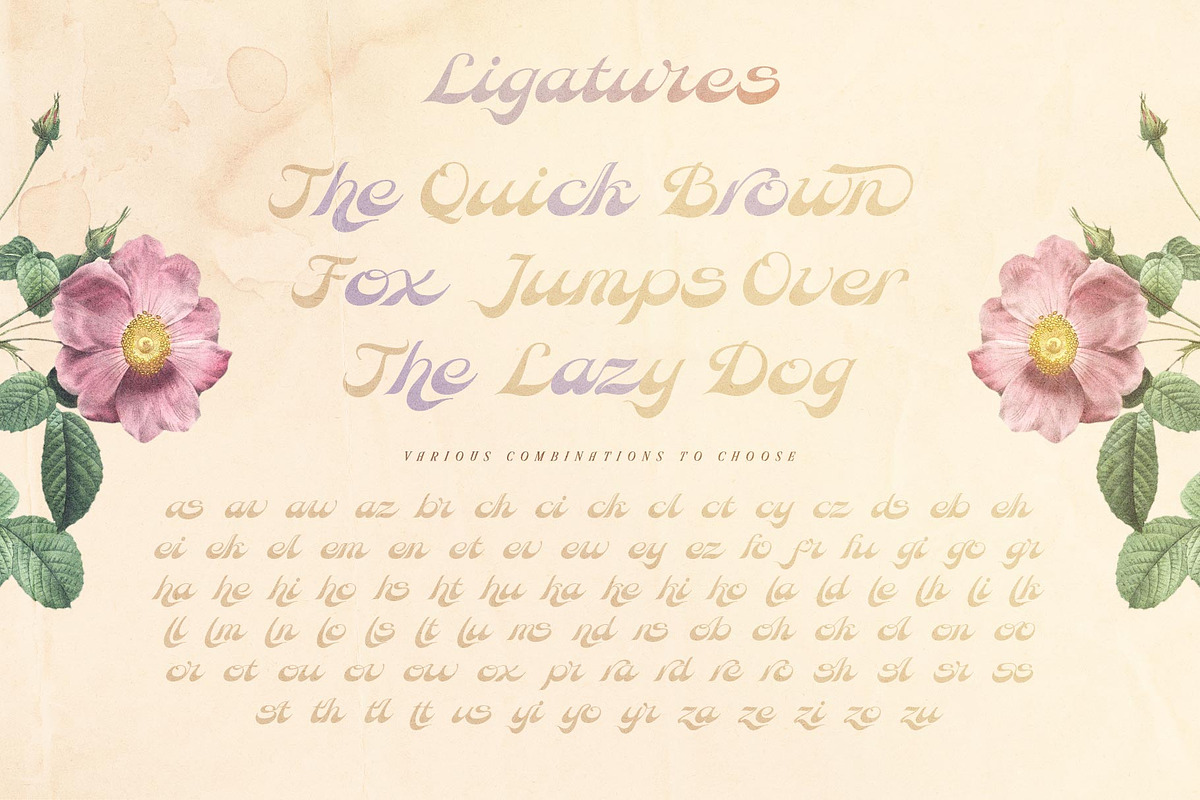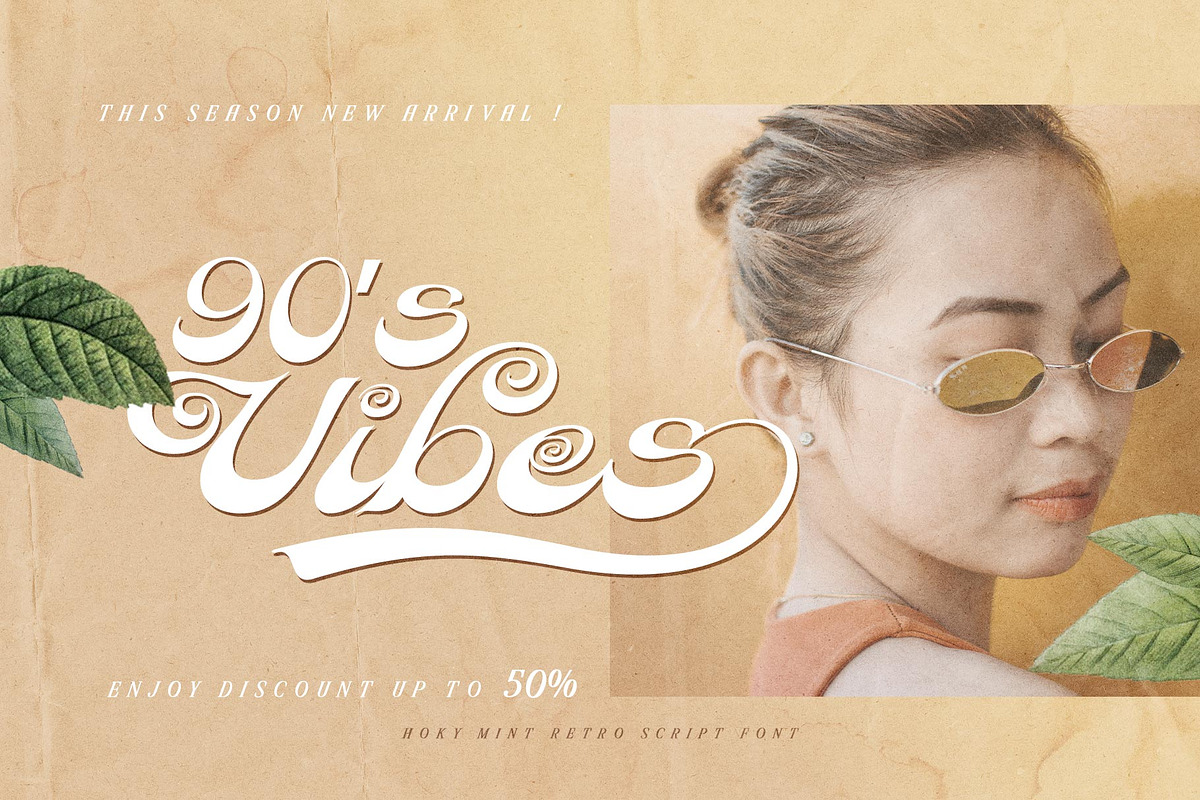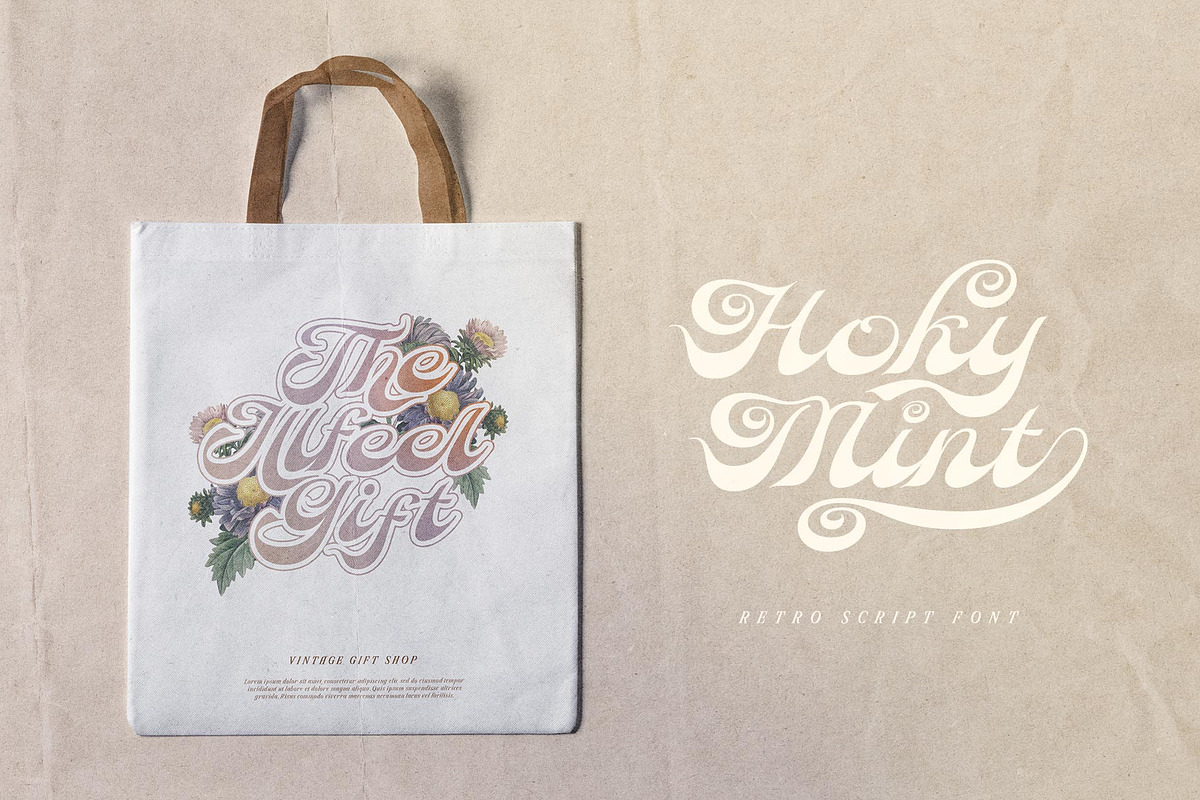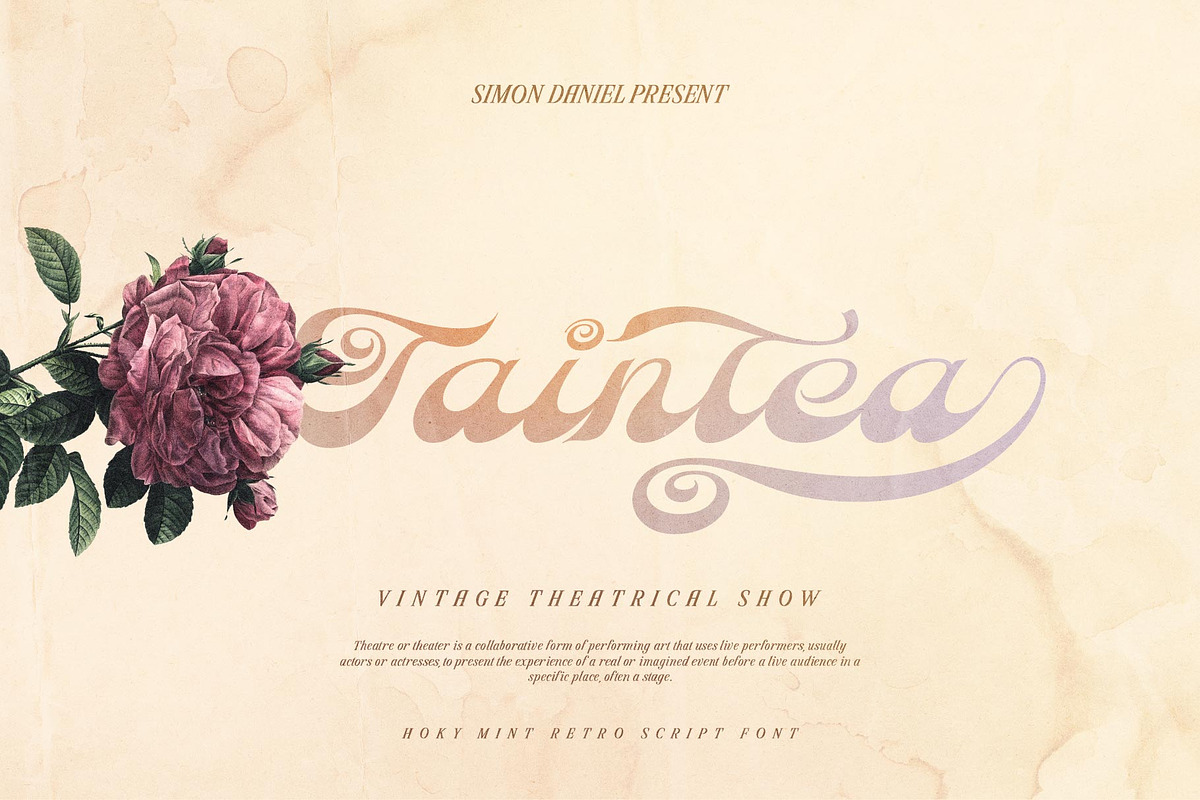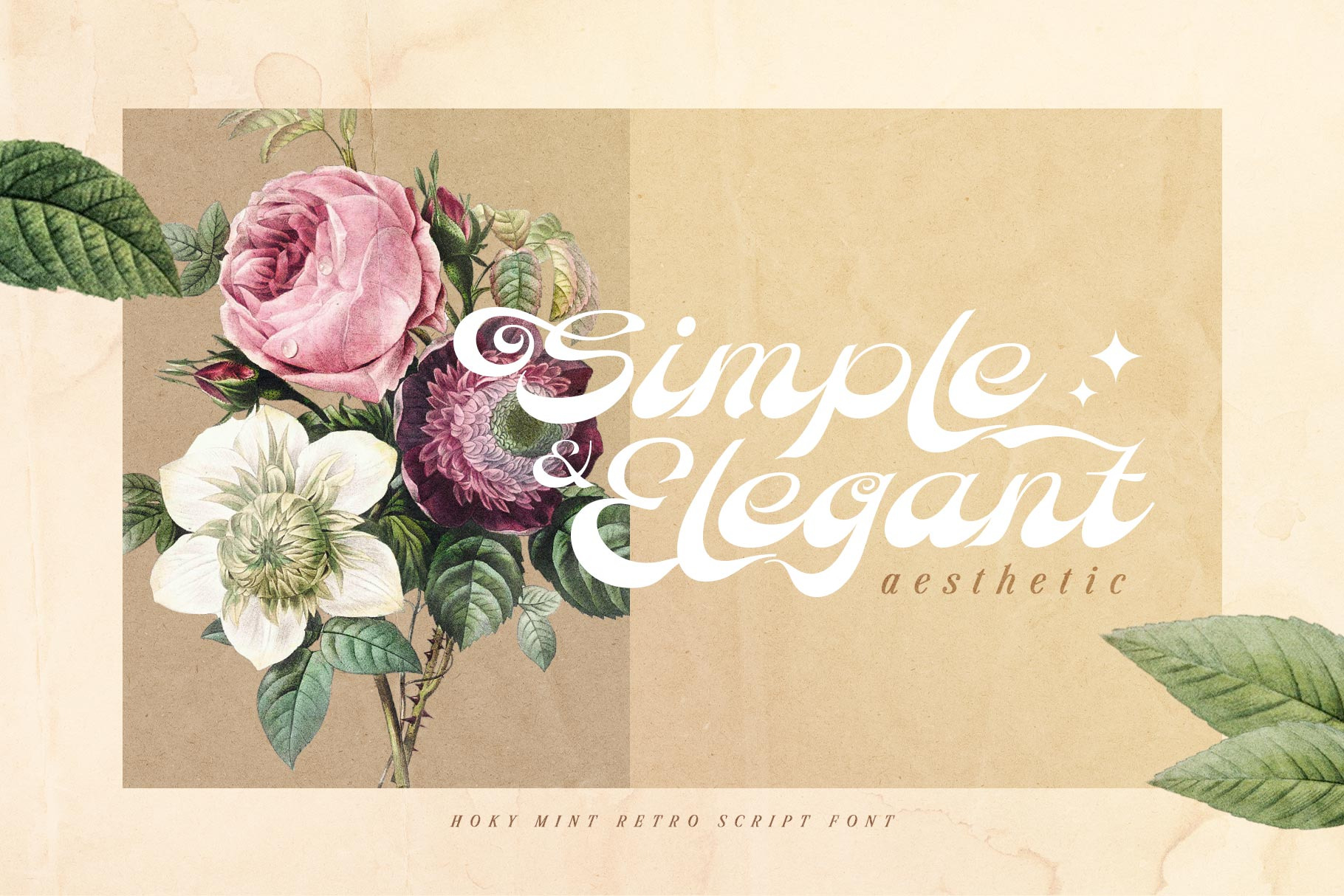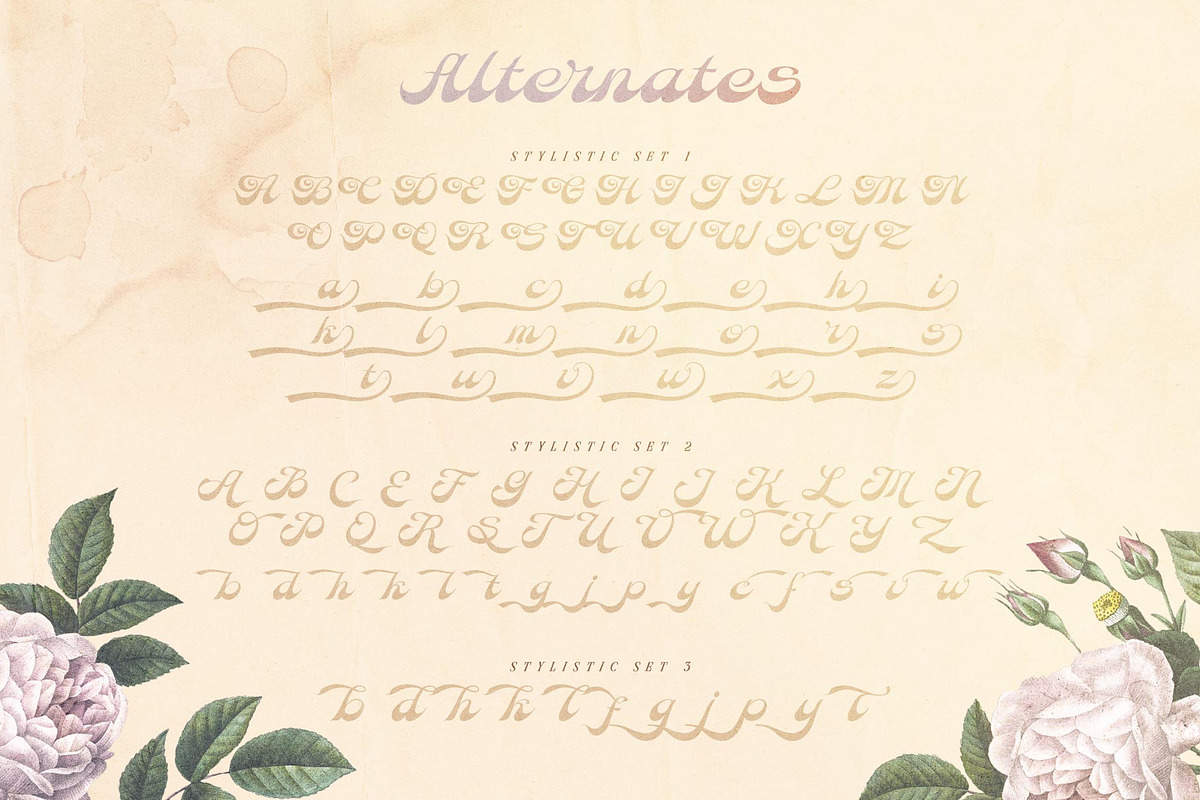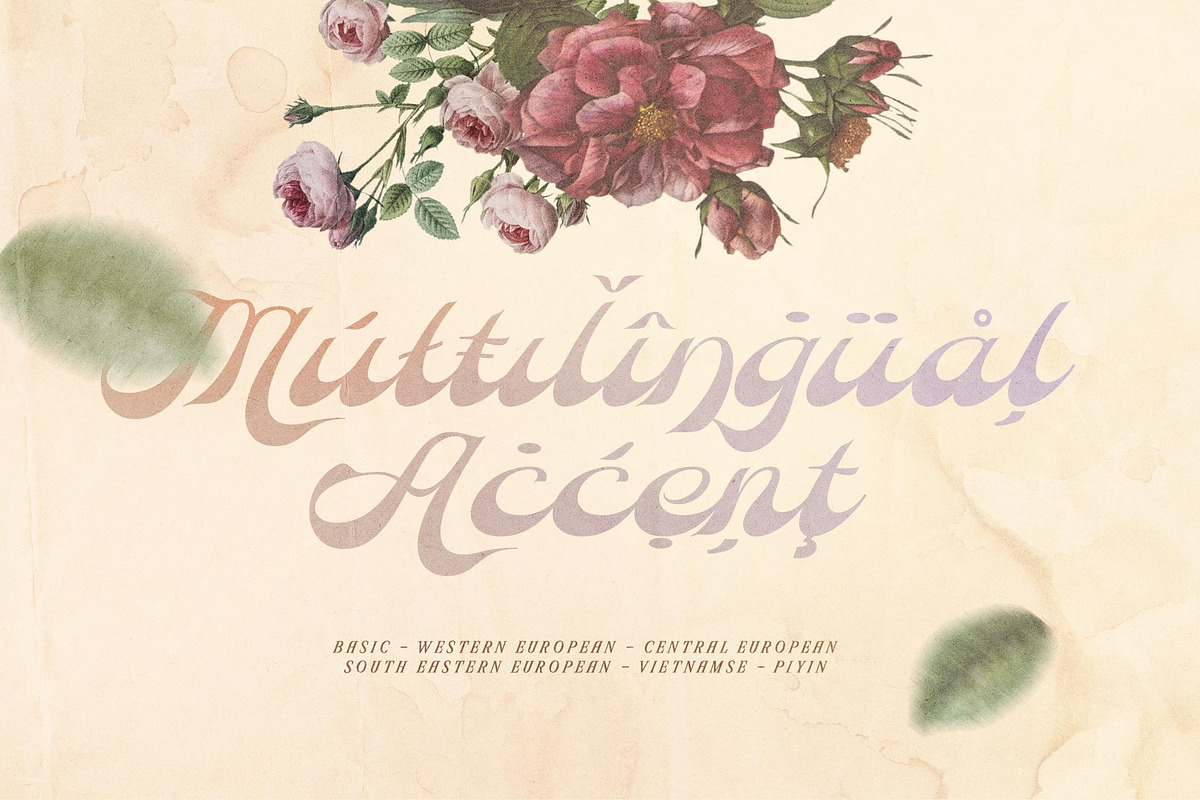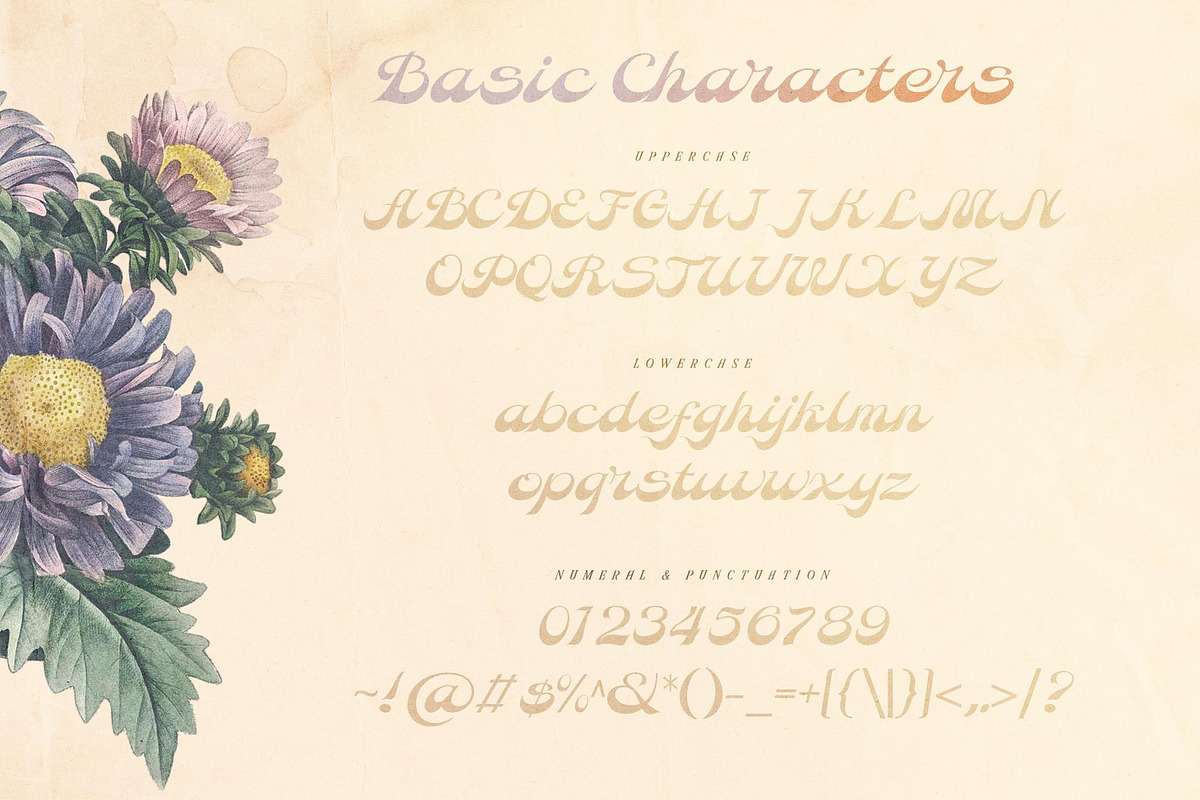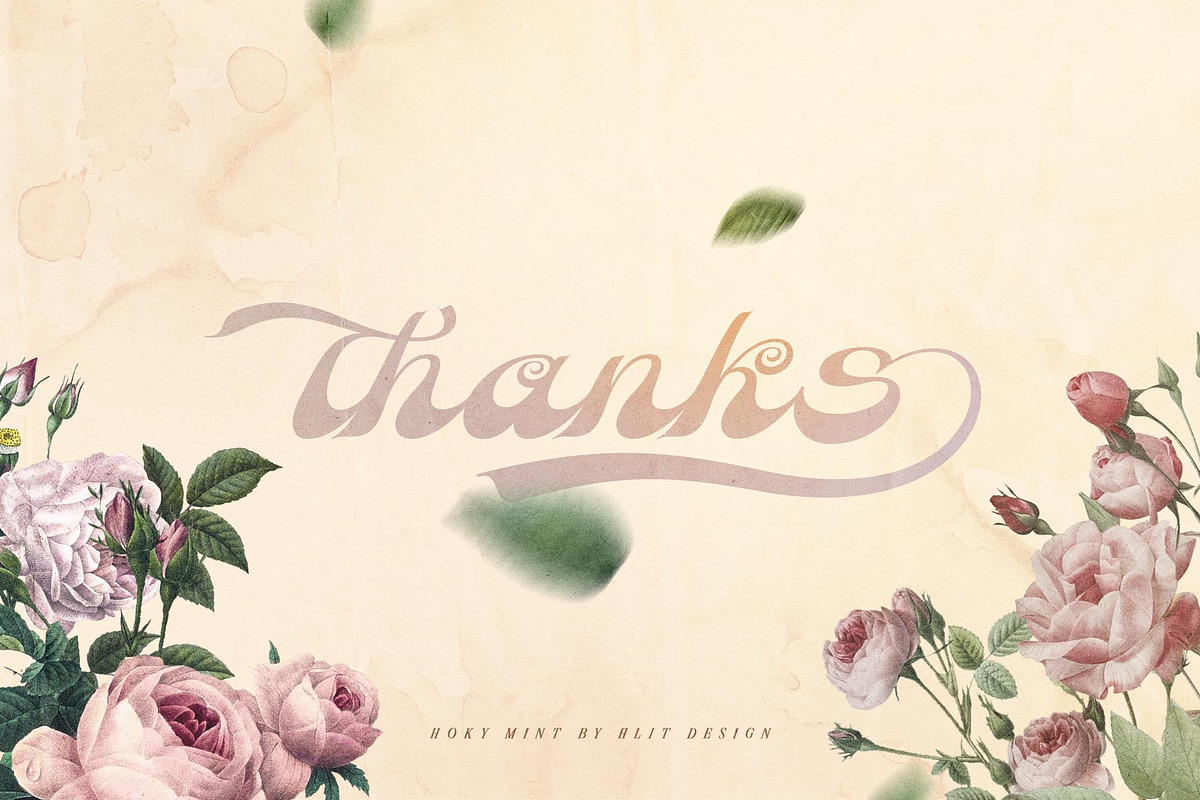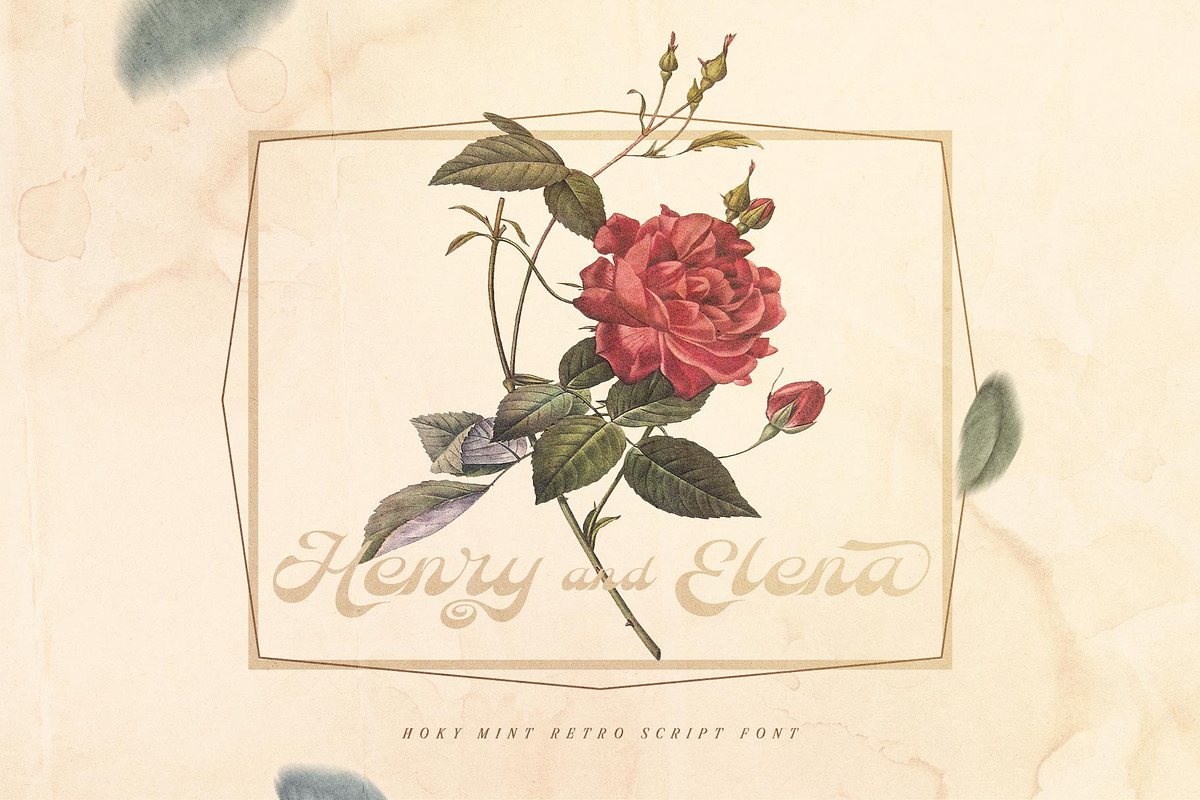
Hoky Mint Typeface
Introducing Hoky Mint Typeface. This font is inspired by the design styles of the 70s. The style is funny, groovy, classic, not serious but has aesthetic and unique value, besides that the Hoky Mint font is very easy to remember and becomes the image of a design.
Hoky Mint is very good for being your font collection because this font is very unique and easy to apply to any media that has a design concept that is not so serious, groovy, classic, funny and unique.